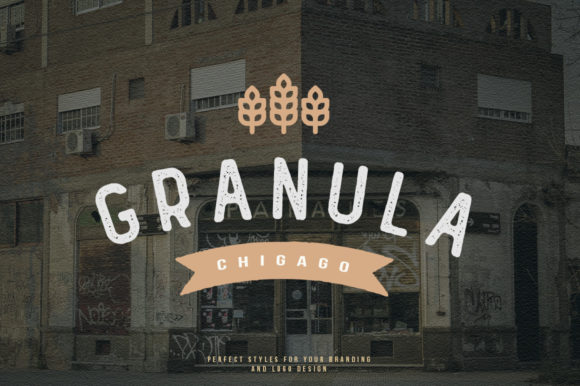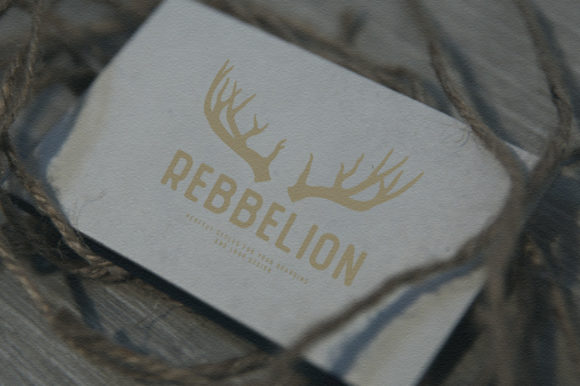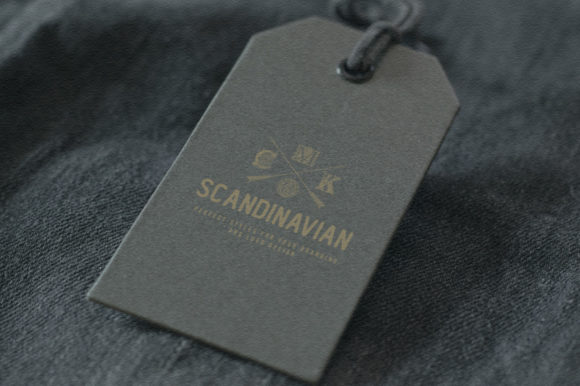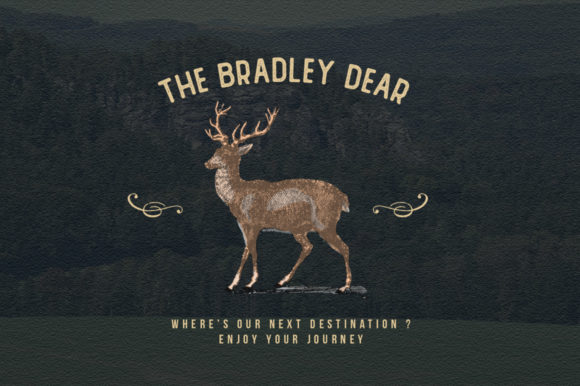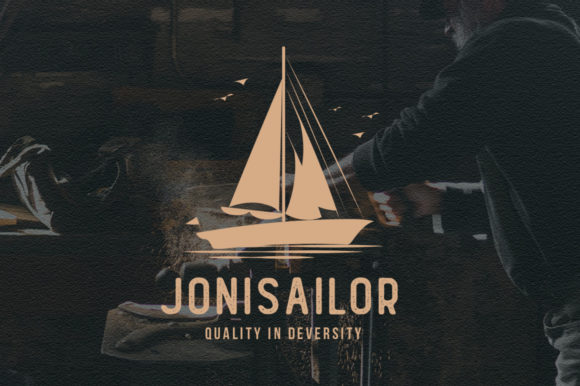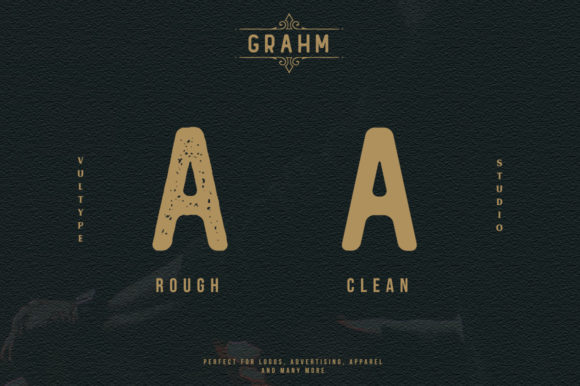
Introducing Grahm Font: The Epitome of Simplicity and Elegance
In the realm of typography, a font can make or break the visual appeal of a design. For designers and crafters seeking a typeface that exudes simplicity, elegance, and versatility, look no further than Grahm Font. This sans serif font has been meticulously crafted to provide a clean and casual feel, making it an ideal choice for a wide range of design projects.
The Characteristics of Grahm Font
Grahm Font is distinguished by its neat and beautiful arrangement of letters. The font’s sans serif design ensures that it remains uncluttered and easy to read, while its clean lines and curves lend it a touch of sophistication. The overall effect is a typeface that appears both modern and timeless, capable of enhancing the visual appeal of any design.
One of the standout features of Grahm Font is its versatility. Whether you’re working on a formal or non-formal design, this font is sure to make a lasting impression. Its simplicity and elegance ensure that it can be seamlessly integrated into a variety of design contexts, from corporate branding and advertising to digital media and crafting projects.
Why Choose Grahm Font?
There are several reasons why designers and crafters should consider Grahm Font for their projects:
- Clean and Simple Design: Grahm Font boasts a clean and simple design that ensures clarity and readability, making it perfect for body text and headings.
- Elegant Appearance: The font’s elegant appearance adds a touch of sophistication to any design, elevating it from ordinary to extraordinary.
- Versatility: Grahm Font’s versatility means it can be used in a wide range of design projects, from formal and corporate to casual and creative.
- Easy to Read: The font’s clear and concise letterforms make it easy to read, even at smaller sizes.
Using Grahm Font in Design Projects
Grahm Font can be used in a variety of design projects, including:
- Branding and Identity: Create a lasting impression with Grahm Font, perfect for logos, business cards, and corporate branding.
- Digital Media: Enhance your digital content with Grahm Font, suitable for websites, social media graphics, and digital advertising.
- Print Design: Add a touch of elegance to your print designs, including brochures, flyers, and posters.
- Crafting Projects: Grahm Font is also perfect for crafters, suitable for handmade cards, scrapbooking, and other paper crafts.
In conclusion, Grahm Font is a simple yet elegant sans serif font that offers a clean and casual feel. Its versatility, readability, and beautiful arrangement of letters make it an excellent choice for designers and crafters seeking to elevate their design projects. Whether you’re working on a formal or non-formal design, Grahm Font is sure to make a lasting impression.